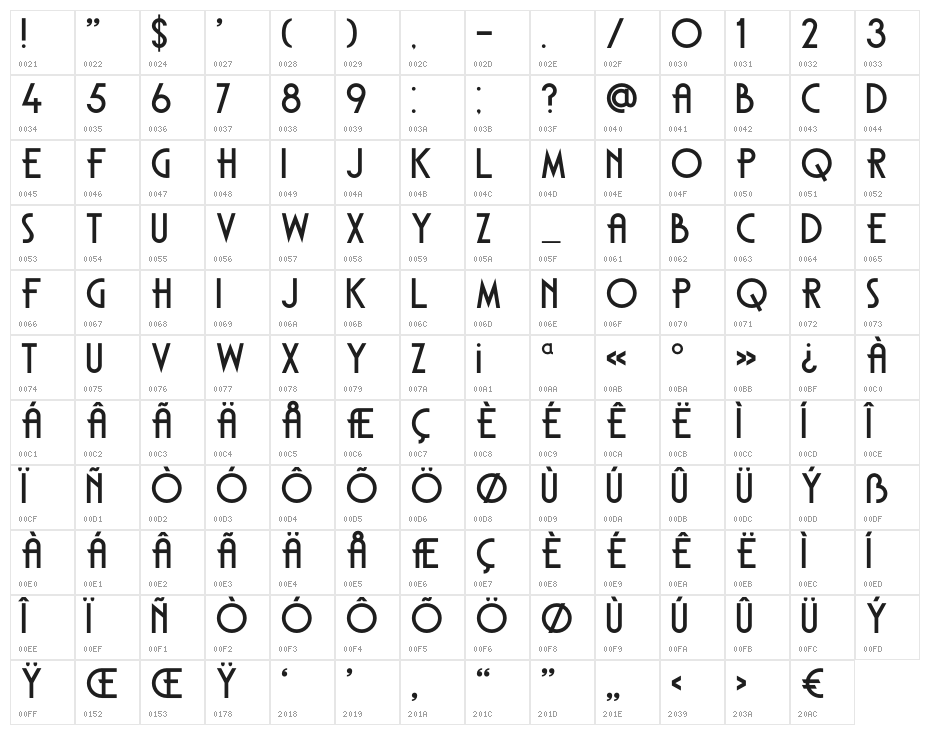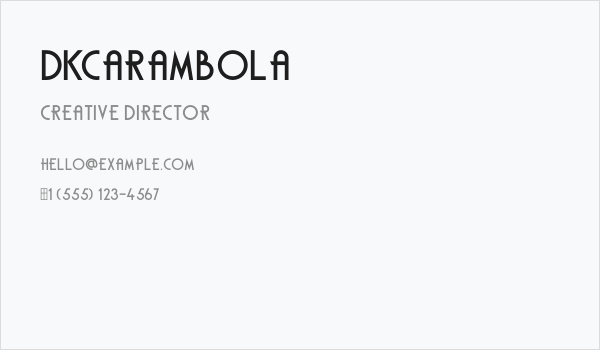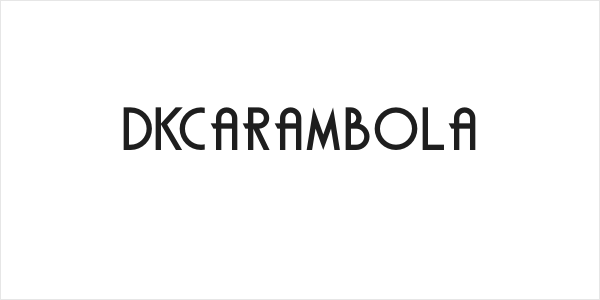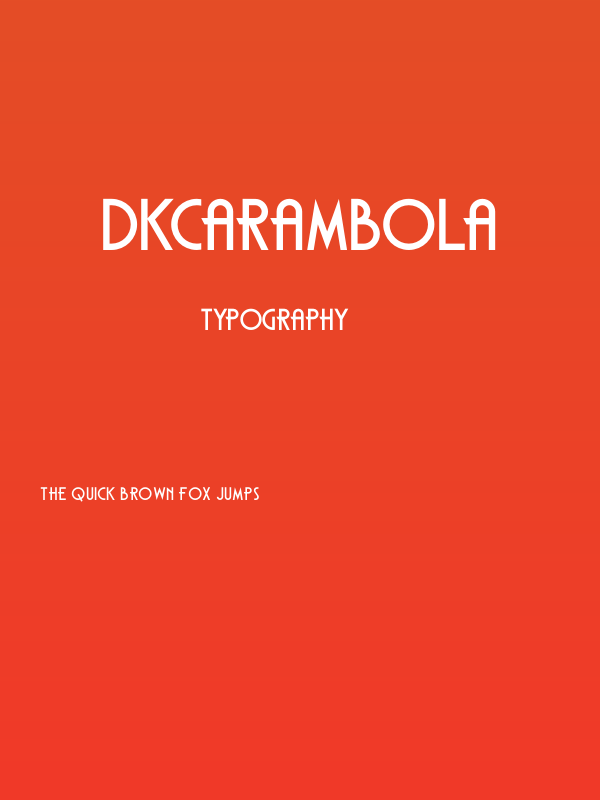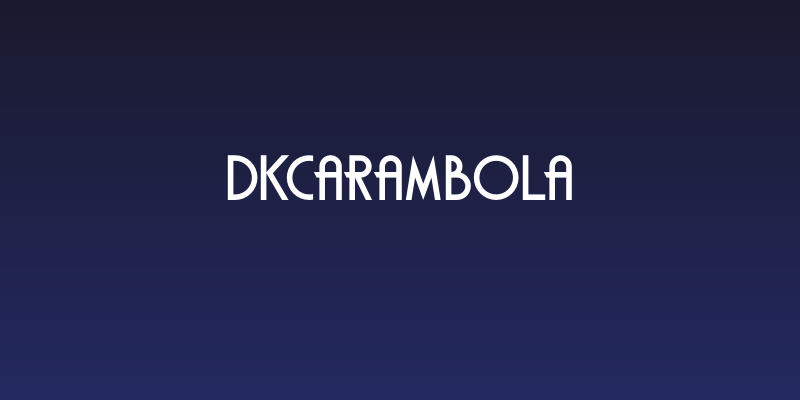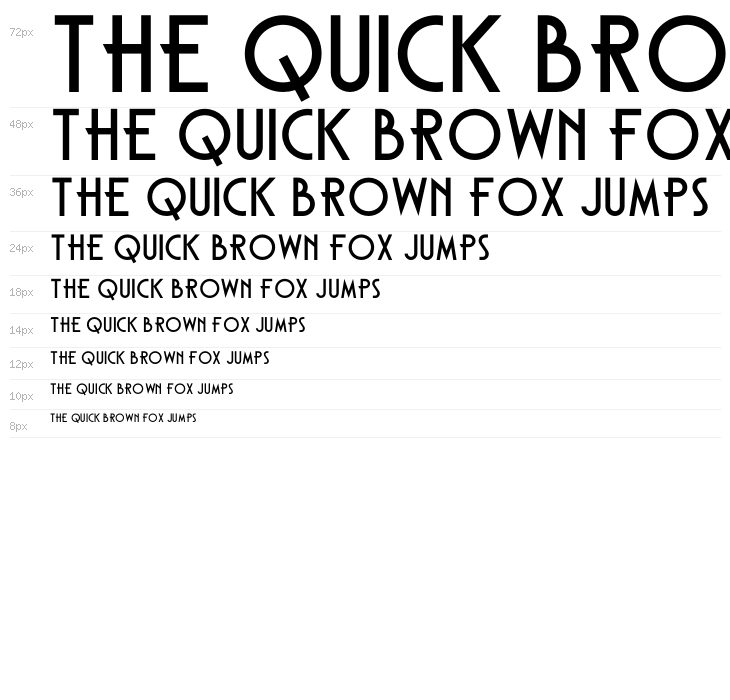
DKCarambola Font
DKCarambola Description
This font features a bold and geometric design with a strong Art Deco influence. The characters are constructed with clean, straight lines and sharp angles, giving it a modern and sophisticated appearance. The uppercase letters are particularly striking, with a uniform height and consistent stroke weight. The numbers and special characters maintain the same geometric style, ensuring a cohesive look across all text. This font's unique style makes it ideal for creating eye-catching headlines and titles.
| Proposed Projects | Ideal for branding, posters, and editorial design where a bold statement is needed. |